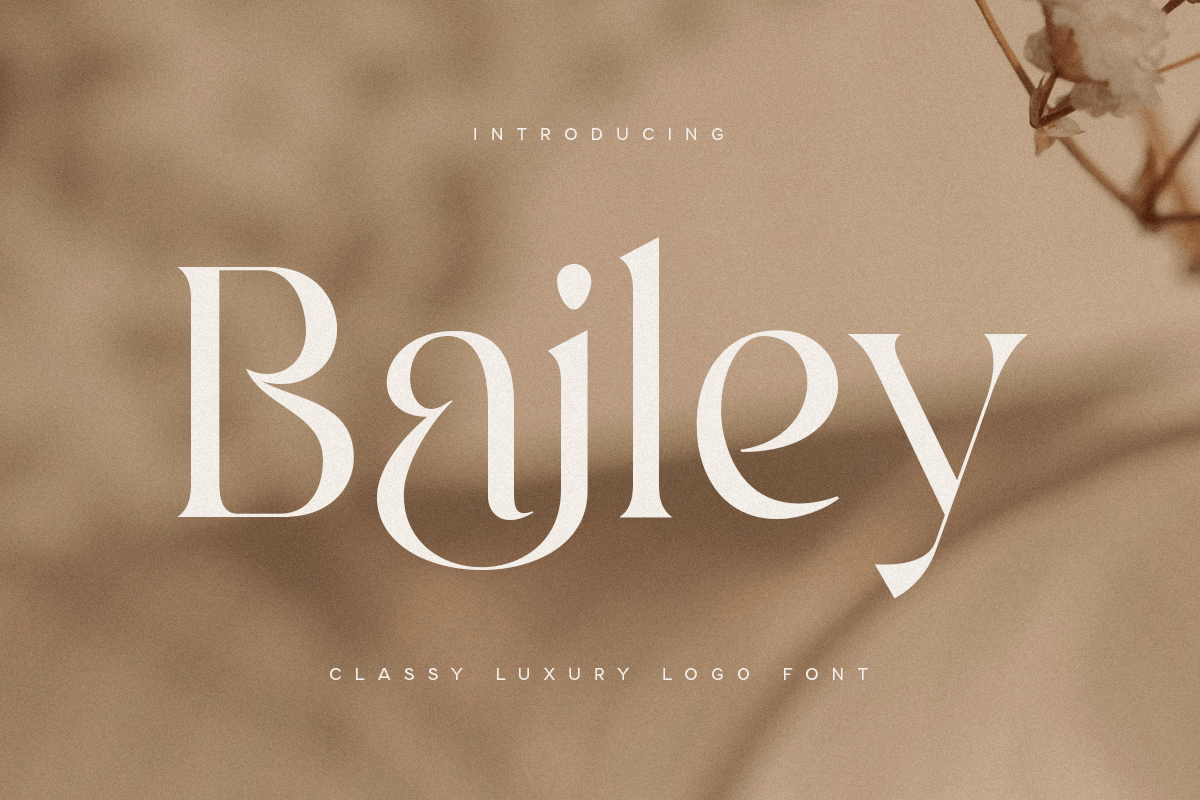
Bailey
-Classy Luxury Logo Font
Bailey
Introducing Bailey, the epitome of luxury and cinematic elegance in a serif font. Perfectly crafted for sophisticated and high-end designs, Bailey brings a touch of class and refinement to any project.
Elevate your designs with Bailey, the luxury serif font that exudes sophistication and style. Whether for high-end branding, cinematic projects, or elegant typography, Bailey adds a timeless and refined touch to your work. Make a statement with Bailey and let your designs shine with unparalleled elegance.